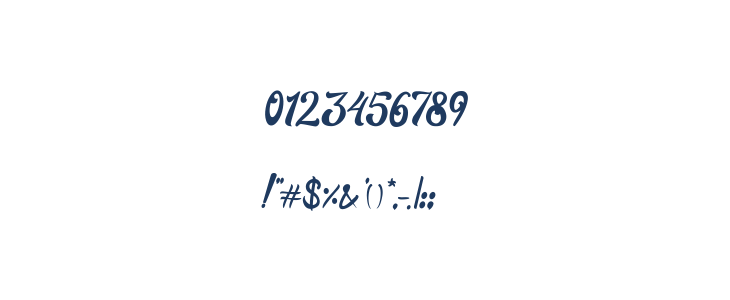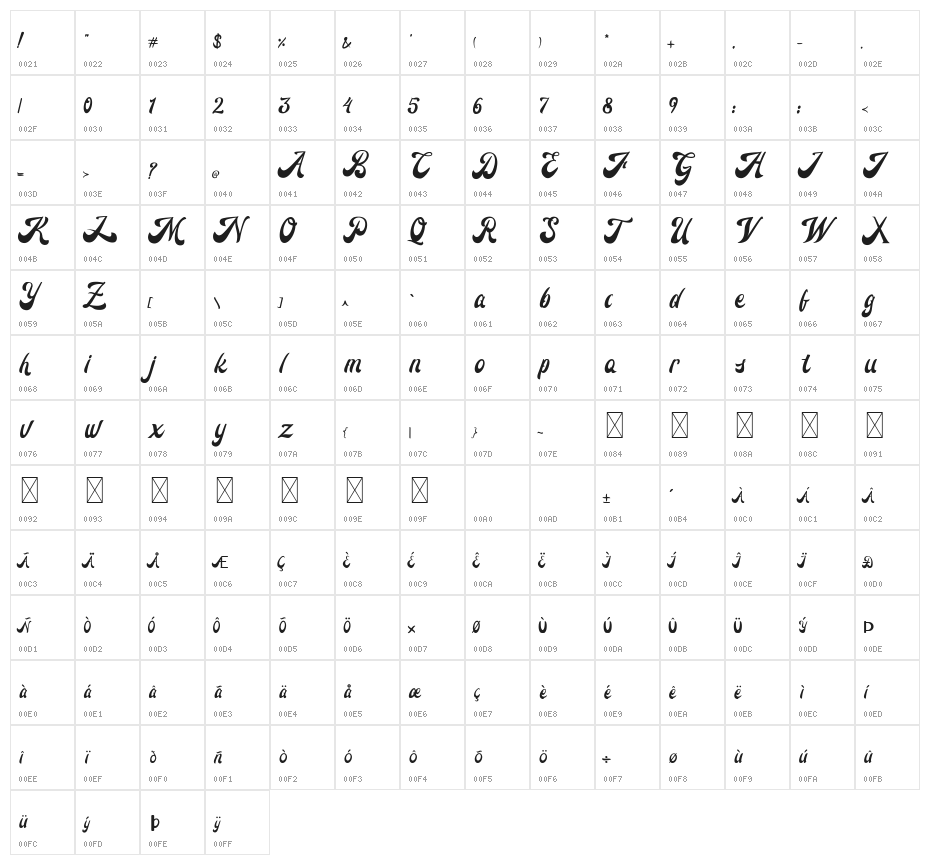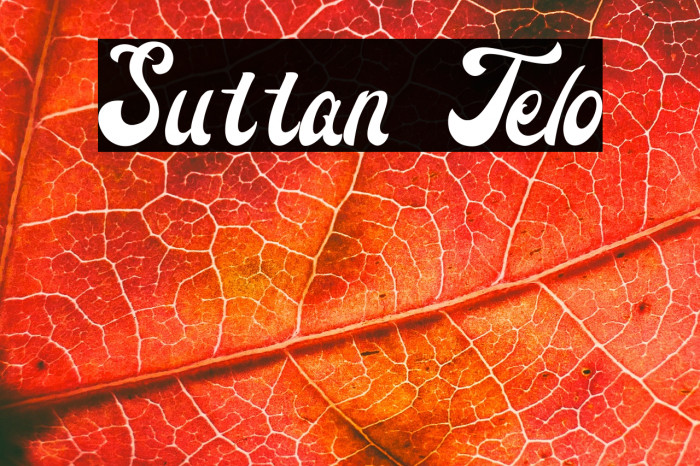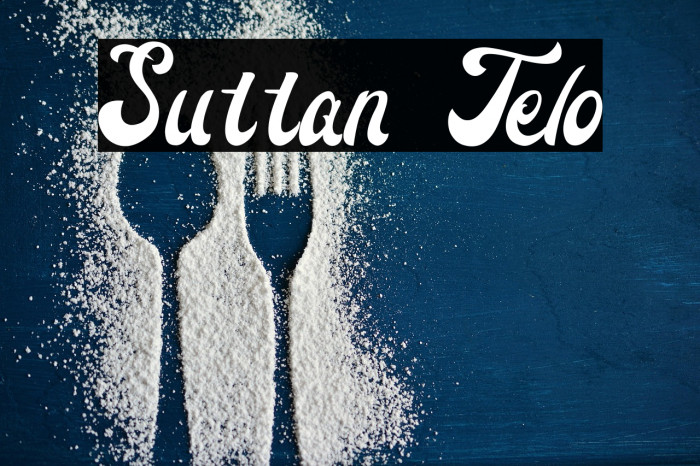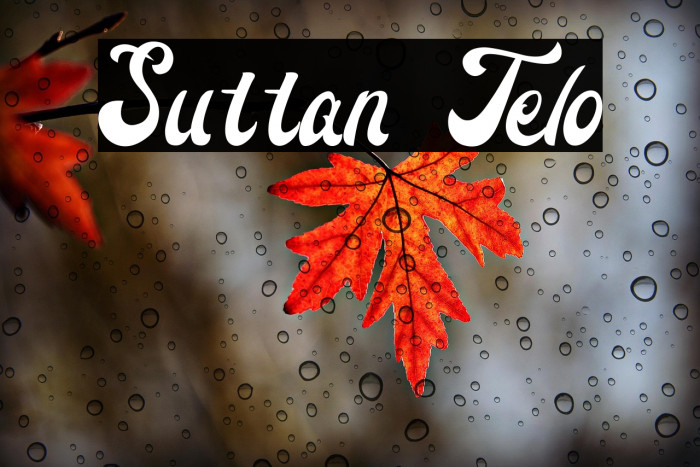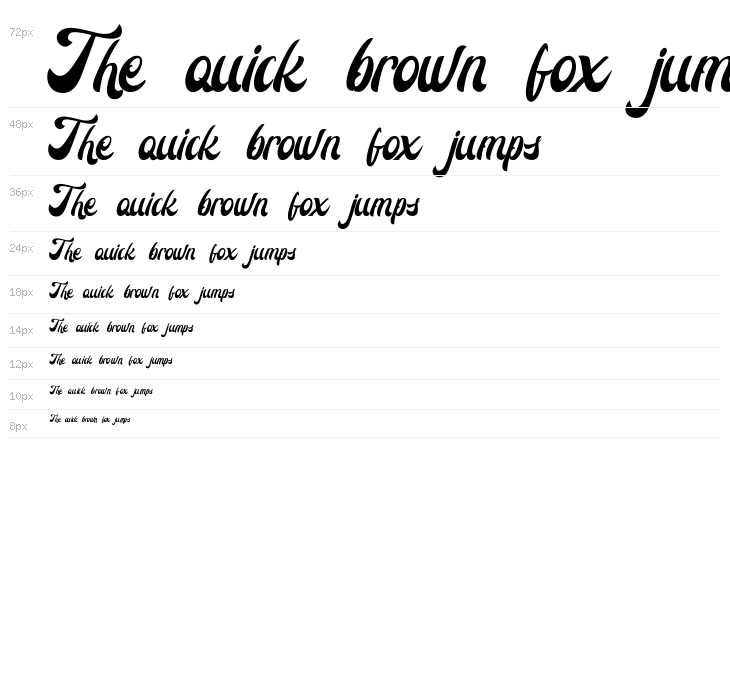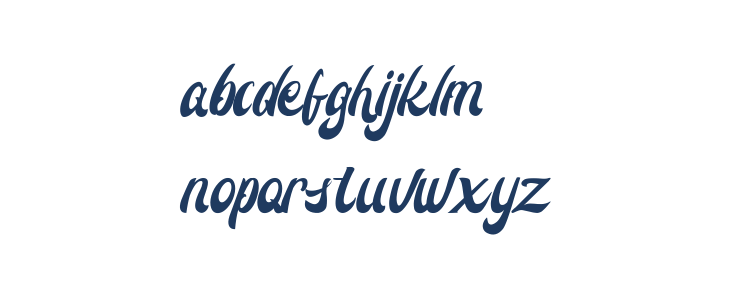
Suttan Telo Font
Suttan Telo Description
This font exhibits a bold and flowing script style, characterized by its elegant and cursive letterforms. The uppercase letters are ornate with sweeping curves and flourishes, while the lowercase letters maintain a consistent and harmonious flow. The numerals are equally stylized, matching the overall aesthetic of the alphabet. Special characters are designed with a similar flair, ensuring a cohesive look throughout. The font's design is reminiscent of calligraphic handwriting, making it suitable for projects that require a touch of sophistication and elegance.